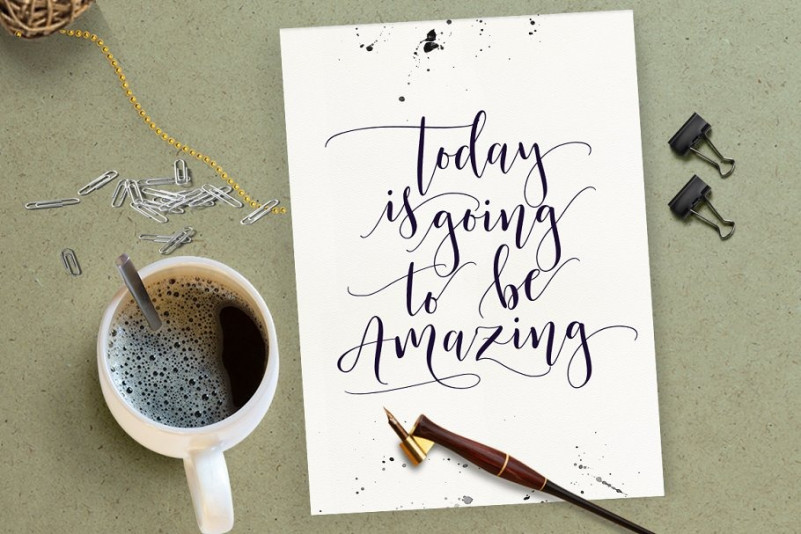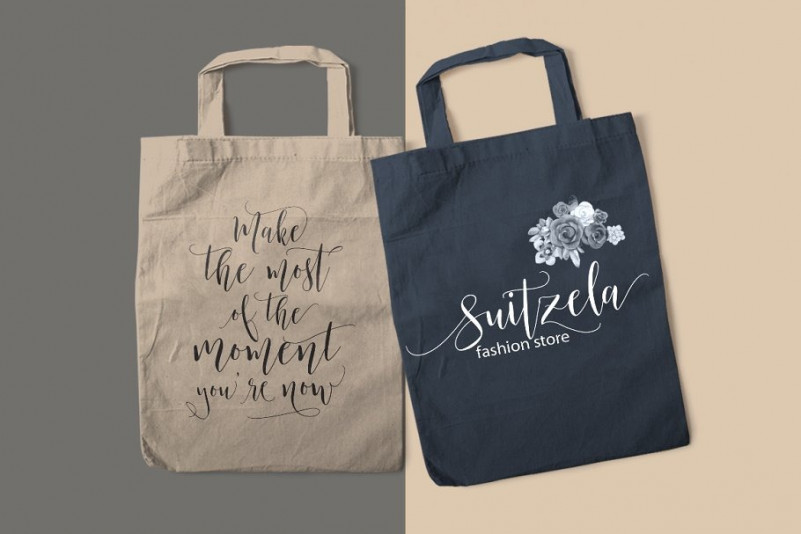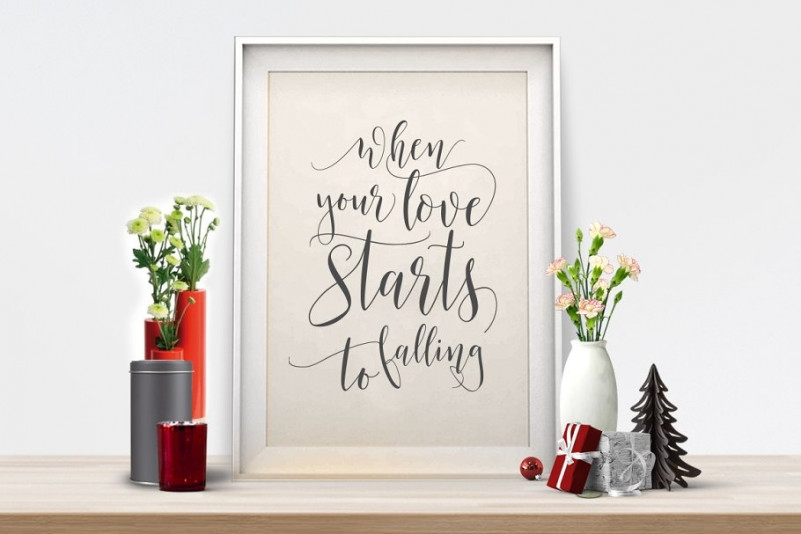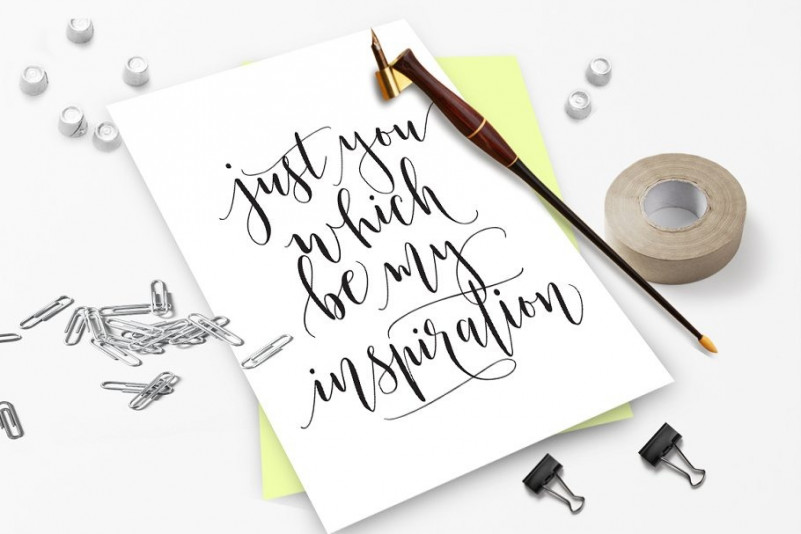
Mustica Script Font
Delicate and thinly lined, This is a modern font in a handwritten calligraphy style. It’s a fancy themed font with calligraphy style, specifically designed for those of you who are looking for a fancy calligraphy style. Introducing Mustica Font. It’s a calligraphy wavy, modern and clasik, so soft, perfect for your next design, such as logos, printed quotes, invitations, cards, product packaging, headers and anything else about your imagination.
Mustica Calligraphy Script allows you to create custom dynamic text. you can access by turning on; Stylistic Alternates, Swash, Stylistic Set, Initial as well as ligatures in Photoshop, Adobe Illustrator, Adobe InDesign or through a panel of glyphs such as Adobe Illustrator, Photoshop CC, Let’s switch from the reguler character into character alternative to get the text with the layout of your dreams. Mustica Script also includes glyphs, punctuation, numbers, and multilingual.